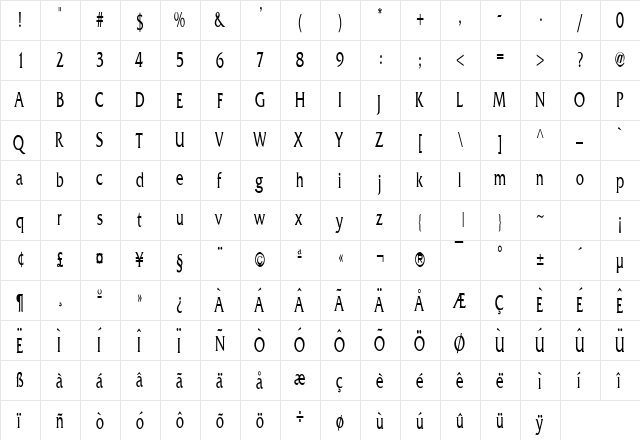
Franco Thin Normal
Design Context for Franco Thin Typeface
Franco Thin is a composed and adaptable typeface that performs quietly and consistently across a wide range of design contexts. The delicate stroke weight brings airiness and refinement to layouts.